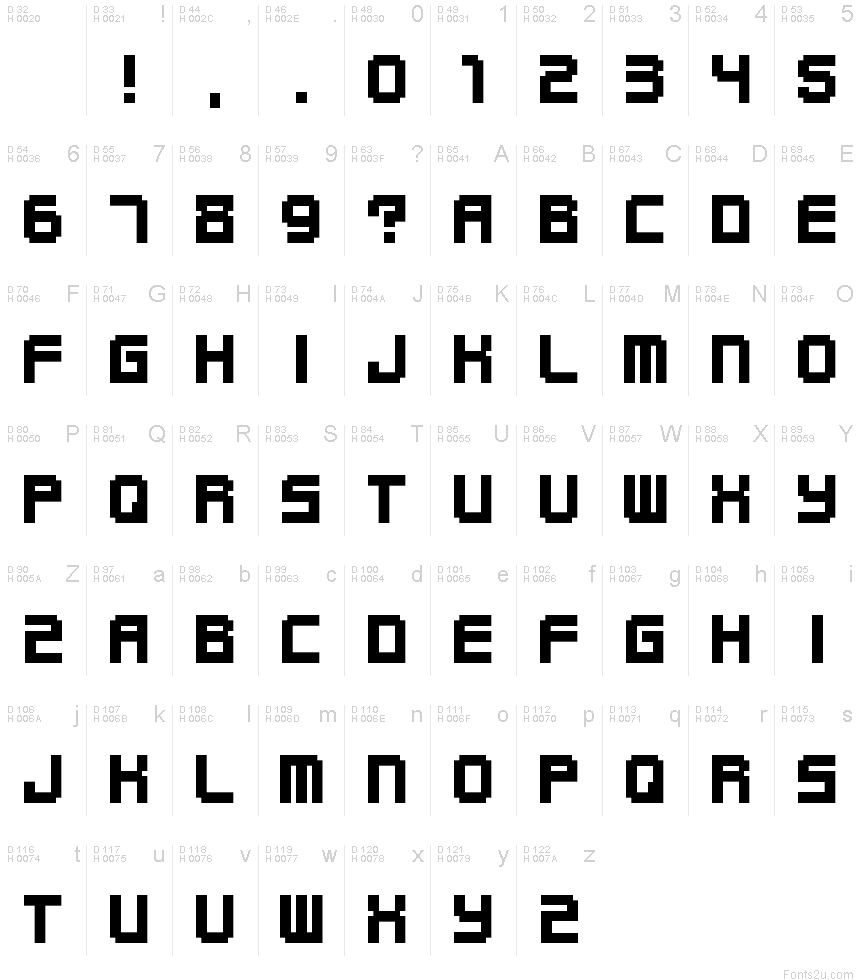
Funky
Funky font by Maurice van de Stouwe is a free pixel bitmap typeface that hits that sweet spot between blocky retro charm and sharp legibility. Its tall, chunky letters march along a strict grid, with flat edges and crisp corners that feel like they’re lit by an old arcade screen. The rhythm is tight and punchy, so short words lock into a solid, almost architectural line of text.
Using Funky, you can give game titles, pixel-art logos, retro event posters, chiptune album covers, Twitch overlays, and bold stickers a distinctly 8‑bit attitude that still reads clean at a glance. This free font shines at larger sizes where its stair-stepped curves and chunky geometry can really show. For longer copy, pair Funky with a simple sans-serif at smaller sizes to keep your layouts bold but readable.